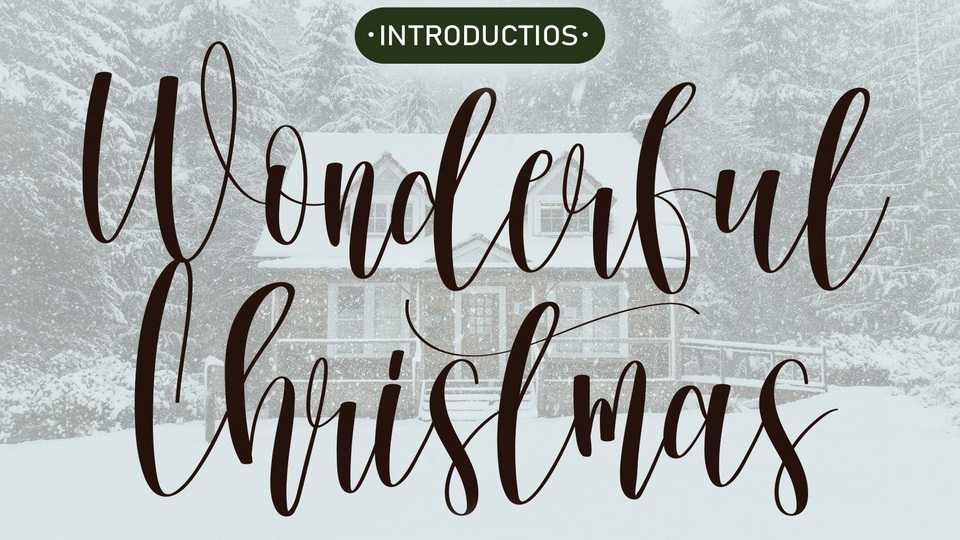
Download Wonderful Christmas font, a joyful handwritten typeface made of beautiful creative strokes. Wonderful Christmas font is perfect for your creative ideas, both formal and informal.